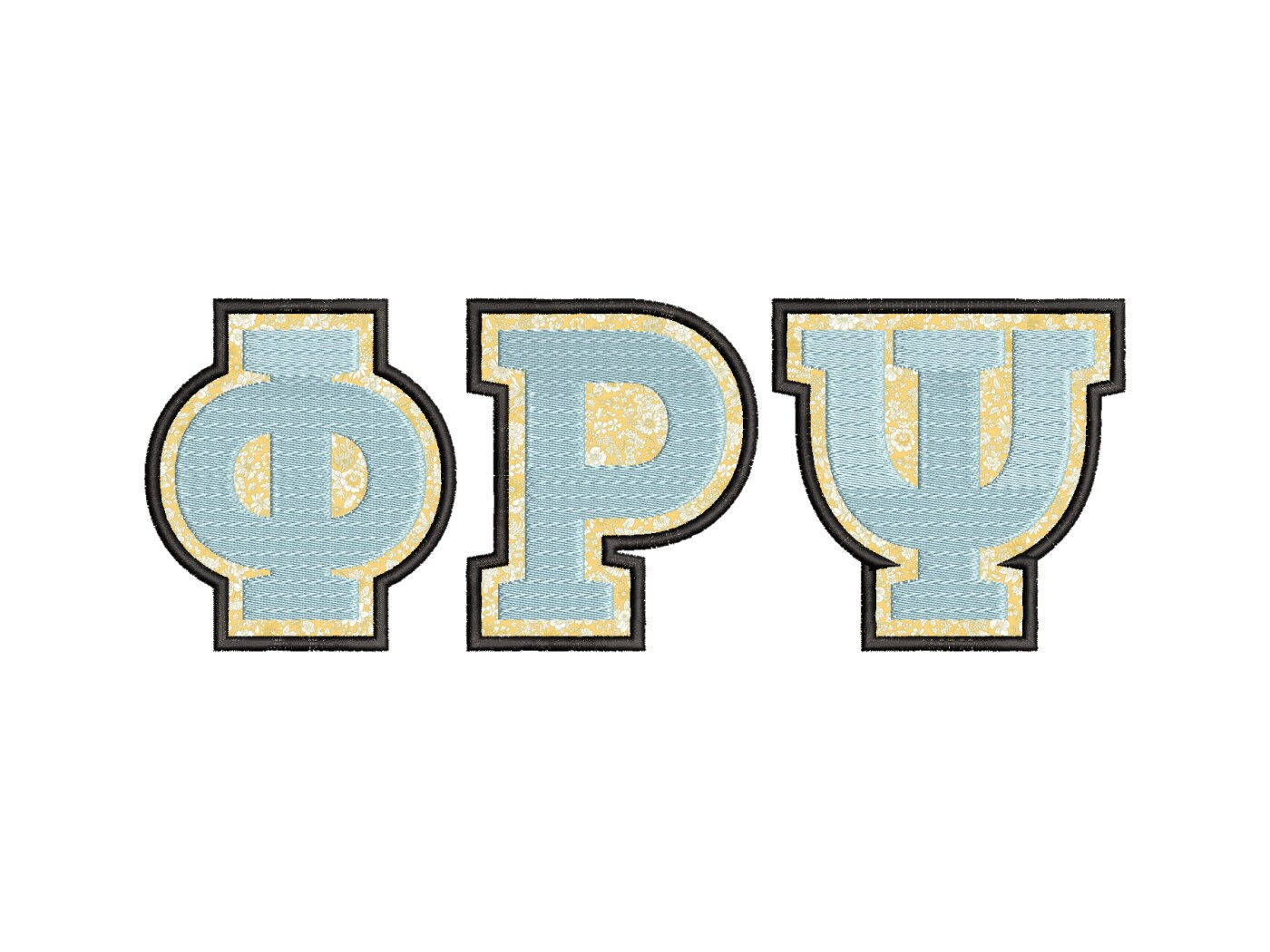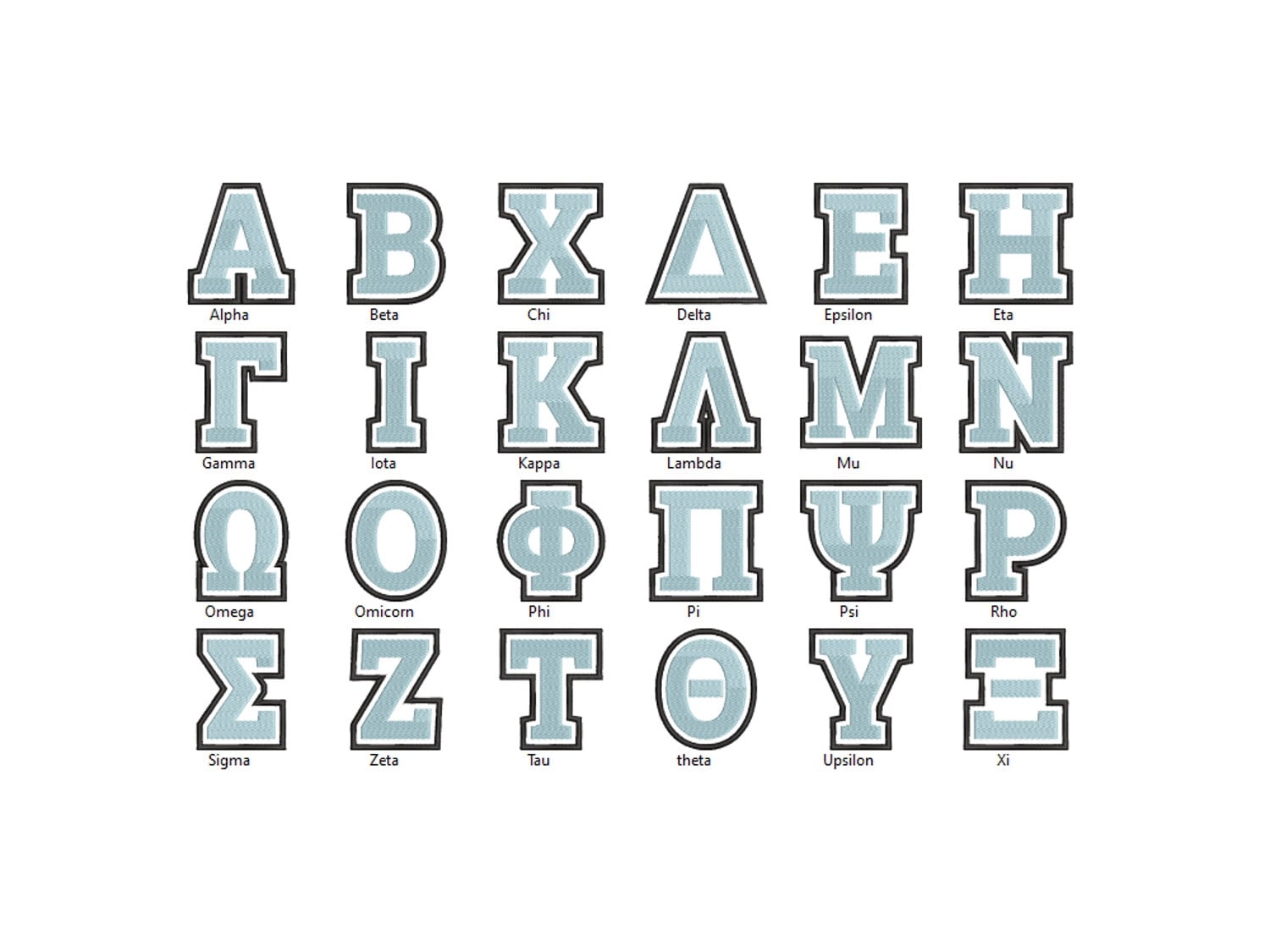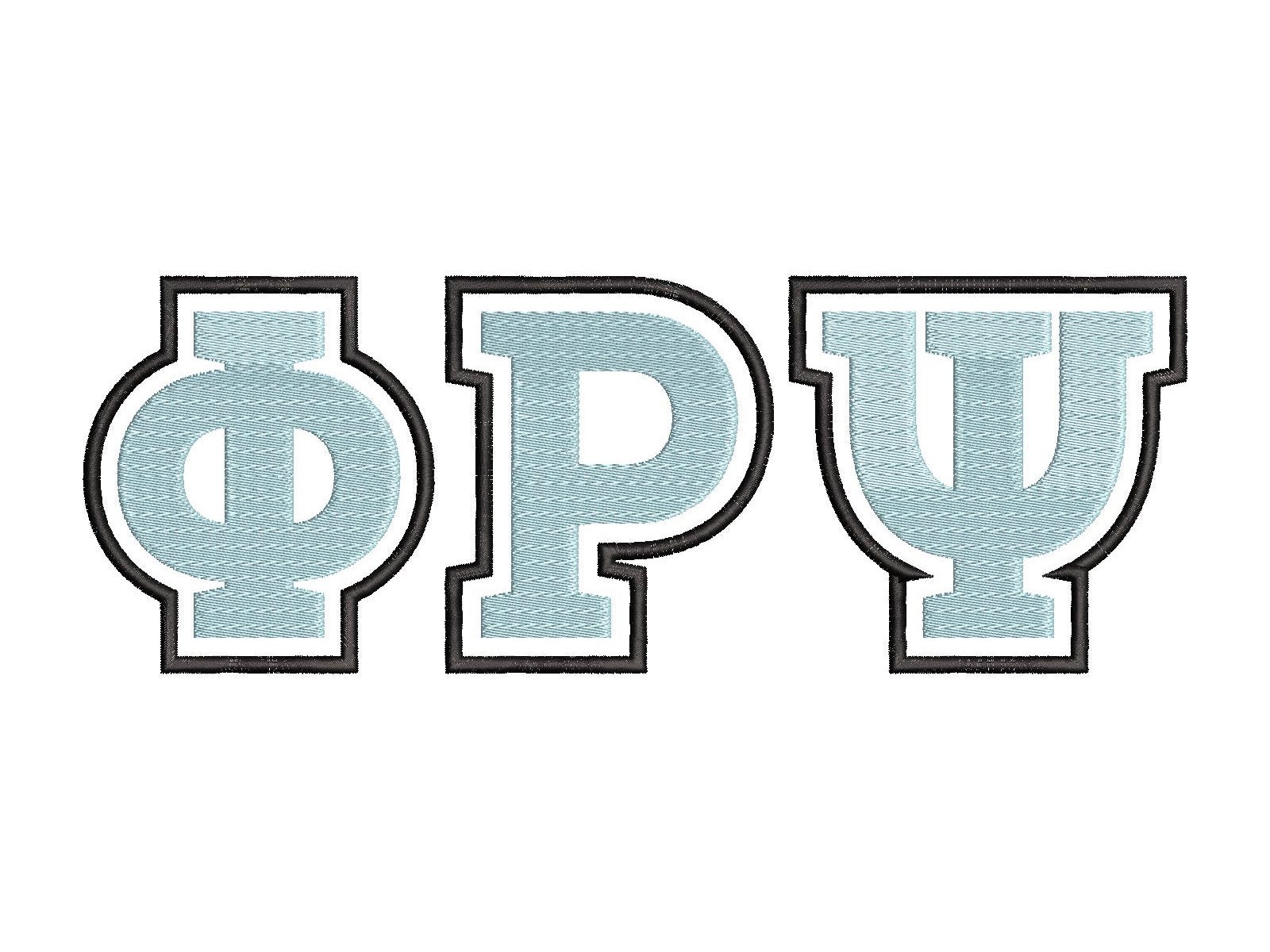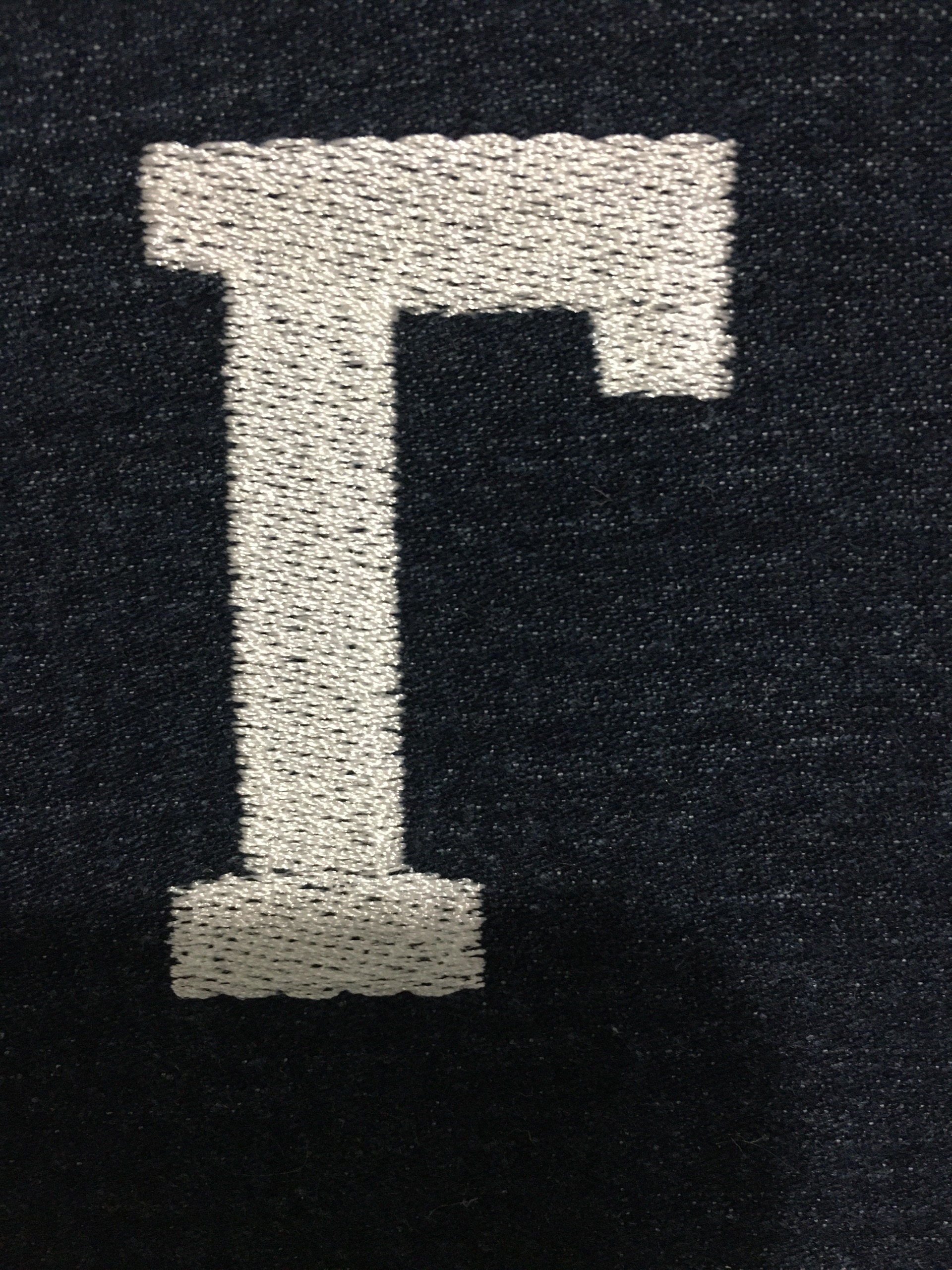
GREEK FONT fill stitch and applique 2 color Greek alphabet Alpha Beta Gamma Theta applique machine embroidery designs monogram letters, BX included
The letters have an applique outside and fill stitched inside.